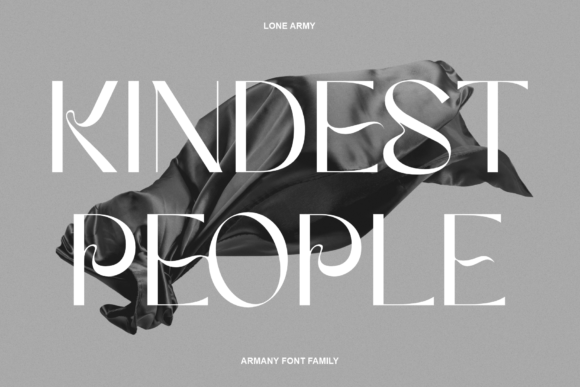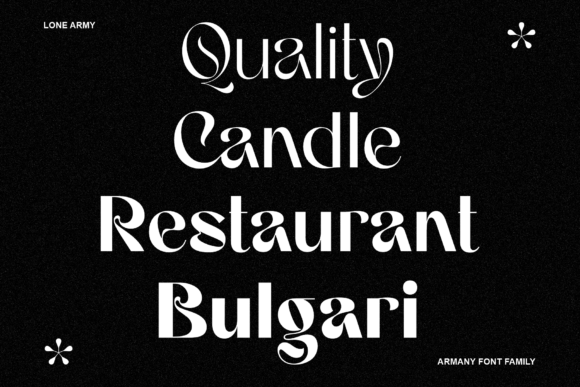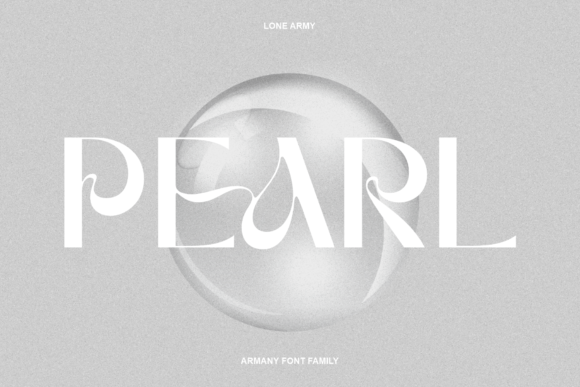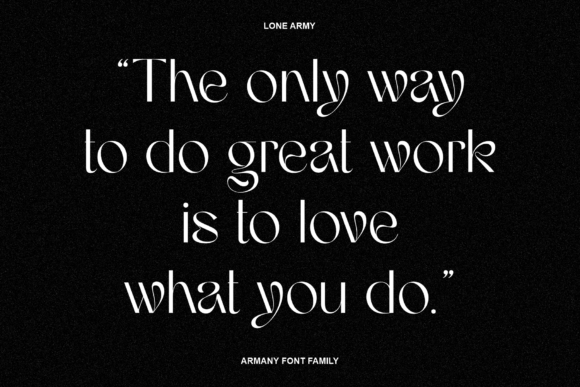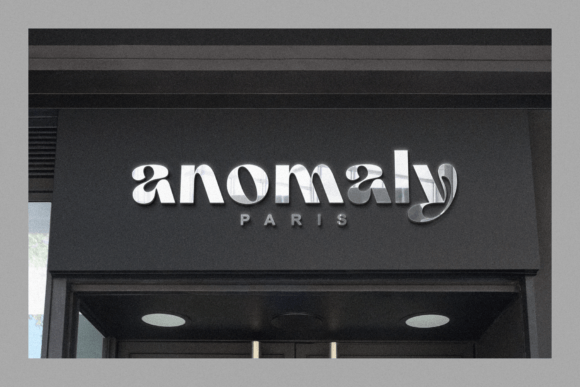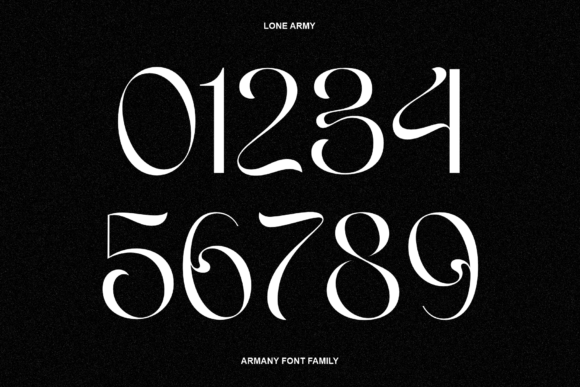
Introducing Armany Font: Elevate Your Designs with Modern Elegance
In the world of typography, a font can make all the difference in capturing the essence of a brand or design. For those seeking a touch of modernity and sophistication, the Armany Font family is an excellent choice. This fluid Modern Sans Serif display font family is perfect for creating captivating headlines, titles, and branding materials that effortlessly grab attention.
The Armany Font Family: A Sleek and Contemporary Design
The Armany Font family boasts a sleek and contemporary design that adds a touch of elegance to both digital and print mediums. Its versatility makes it an ideal choice for designers and crafters looking to elevate their work. Whether you’re creating a logo, brochure, or website, this font family is sure to make a lasting impression.
Key Features of Armany Font
- Fluid Modern Sans Serif Design: The Armany Font family features a fluid, modern sans serif design that exudes elegance and sophistication.
- Versatile and Adaptable: This font family is perfect for a wide range of design applications, from captivating headlines and titles to branding materials and more.
- Attention-Grabbing: The sleek and contemporary design of Armany Font ensures that your designs will grab attention and leave a lasting impression.
- Digital and Print Friendly: This font family is optimized for both digital and print mediums, making it a versatile choice for designers.
Why Choose Armany Font?
With so many font options available, why choose Armany Font? Here are just a few reasons why designers and crafters are falling in love with this modern sans serif font family:
- Timeless Appeal: The Armany Font family has a timeless appeal that ensures your designs will remain relevant for years to come.
- Elegance and Sophistication: This font family adds a touch of elegance and sophistication to any design, making it perfect for high-end brands and luxury products.
- Easy to Read: The clean and simple design of Armany Font makes it easy to read, even at small sizes.
- Highly Versatile: This font family can be used for a wide range of design applications, from headlines and titles to body copy and more.
Design Inspiration: How to Use Armany Font
Now that you’ve fallen in love with Armany Font, here are a few design inspiration ideas to get you started:
- Logos and Branding: Use Armany Font to create a stunning logo or branding materials that exude elegance and sophistication.
- Headlines and Titles: This font family is perfect for creating attention-grabbing headlines and titles that make a lasting impression.
- Brochures and Flyers: Add a touch of modernity and elegance to your brochures and flyers with Armany Font.
- Web Design: Use this font family to create a sleek and contemporary website that showcases your brand’s personality.
In conclusion, the Armany Font family is an excellent choice for designers and crafters looking to elevate their work with a touch of modern elegance. With its sleek and contemporary design, versatility, and timeless appeal, this font family is sure to make a lasting impression. Whether you’re creating a logo, brochure, or website, Armany Font is the perfect choice for those seeking to add a touch of sophistication to their designs.
Get Ready to Elevate Your Designs with Armany Font